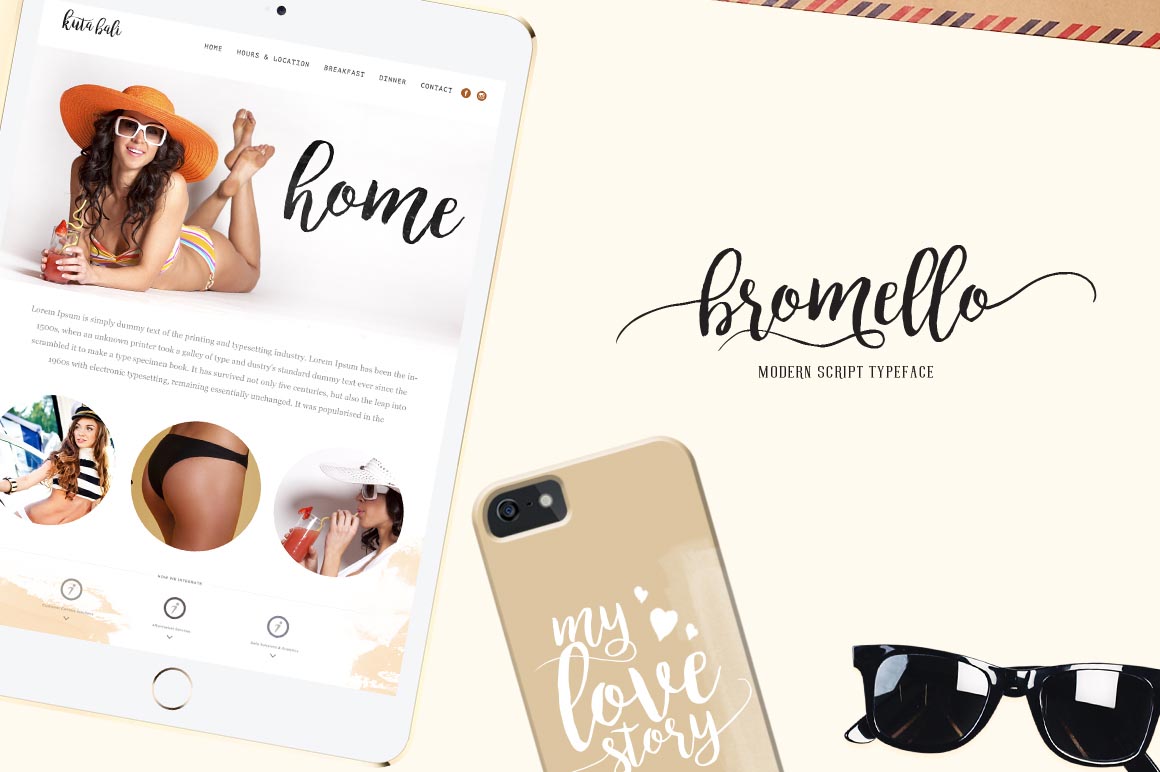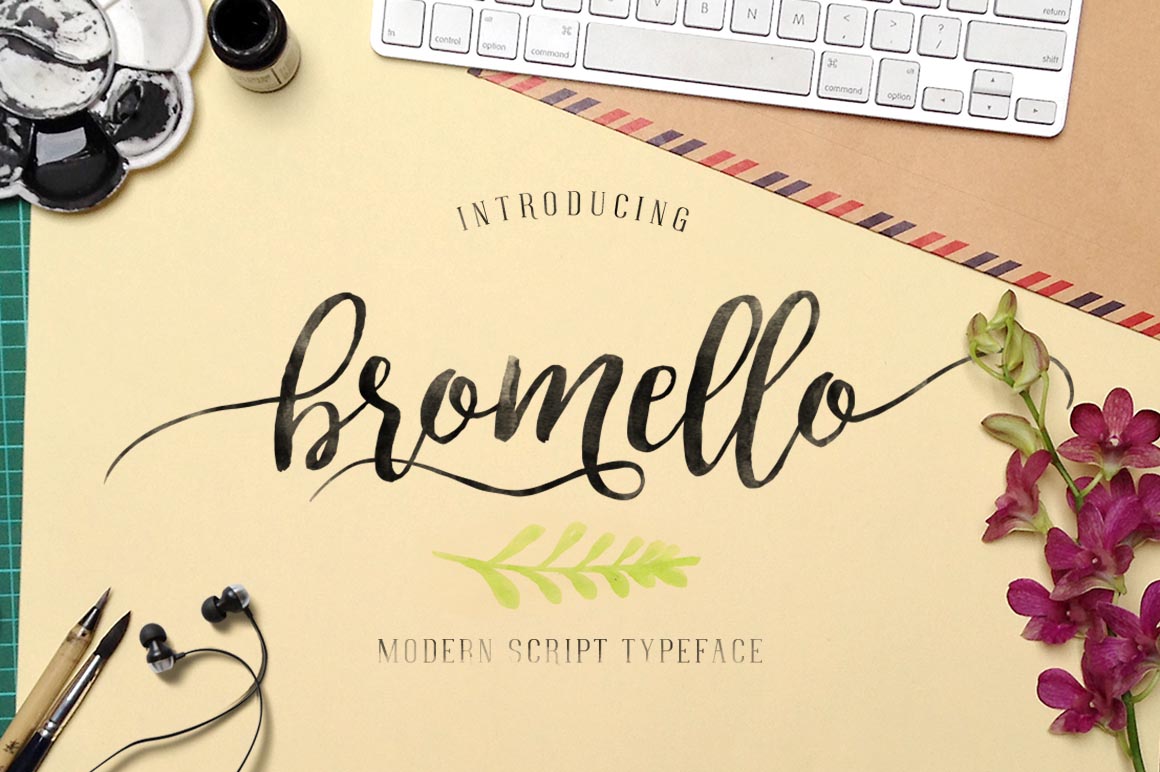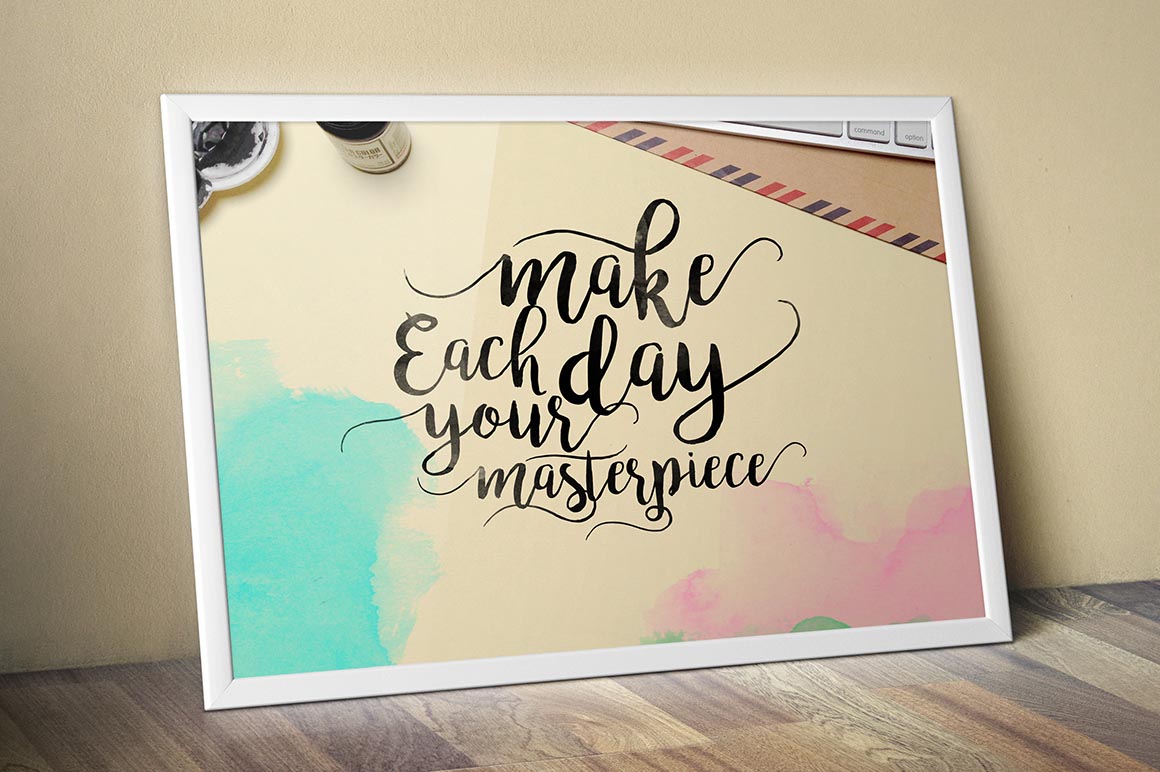
Bromello – Free Script Font
This creative & handwritten style script font is from AlitDesign. Great for your new creative projects. Download and enjoy 😉